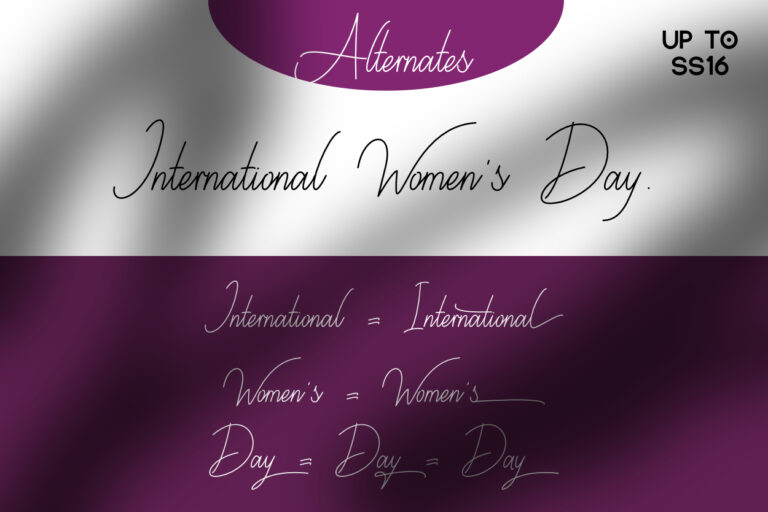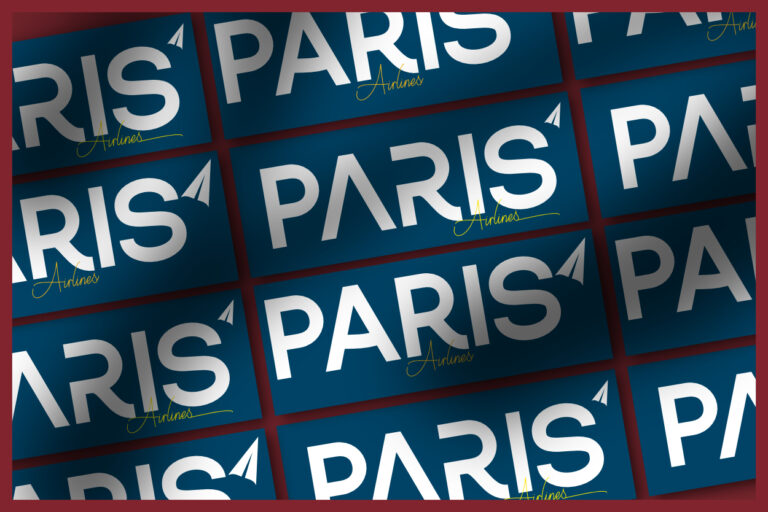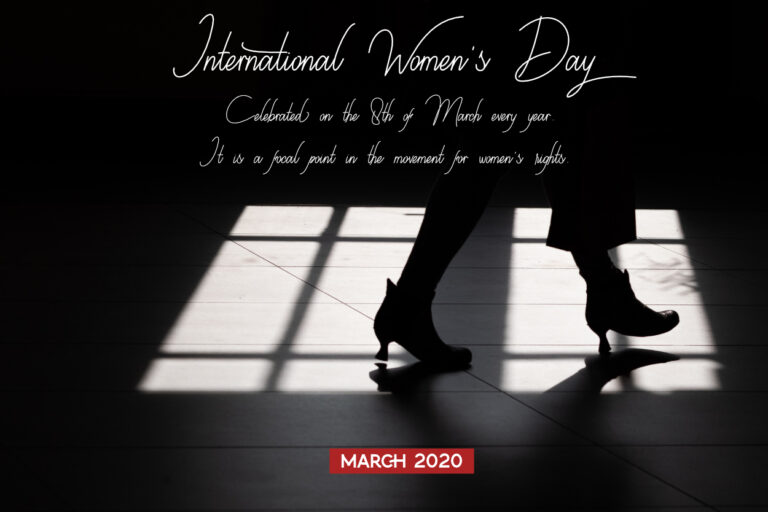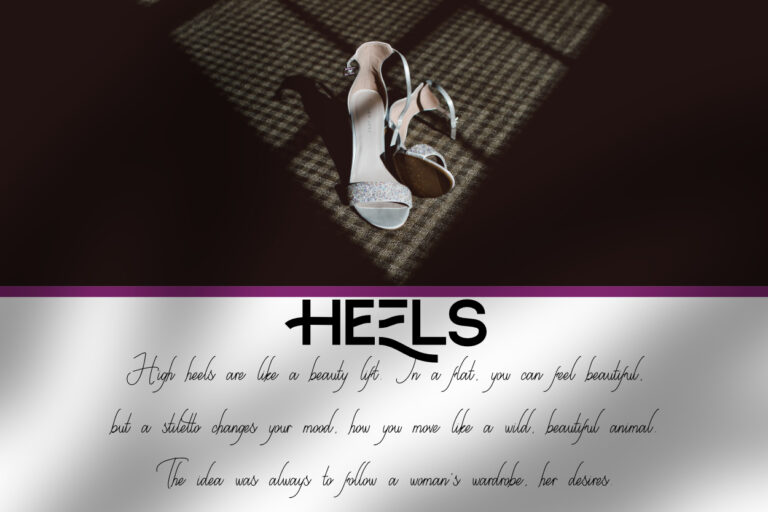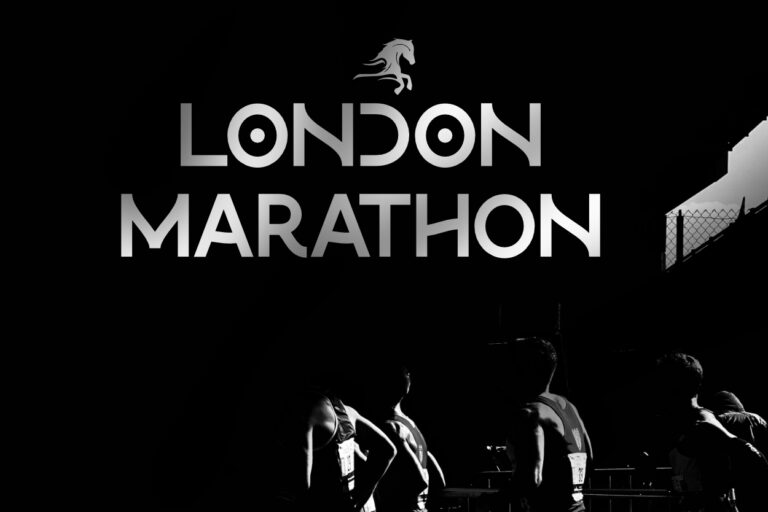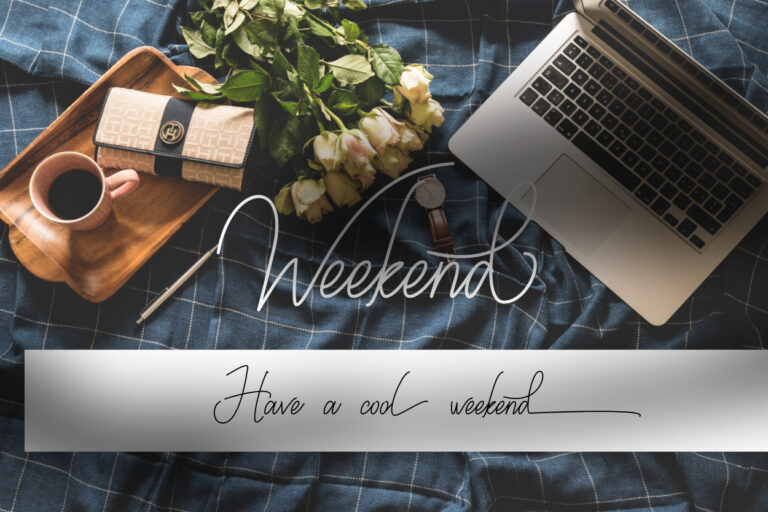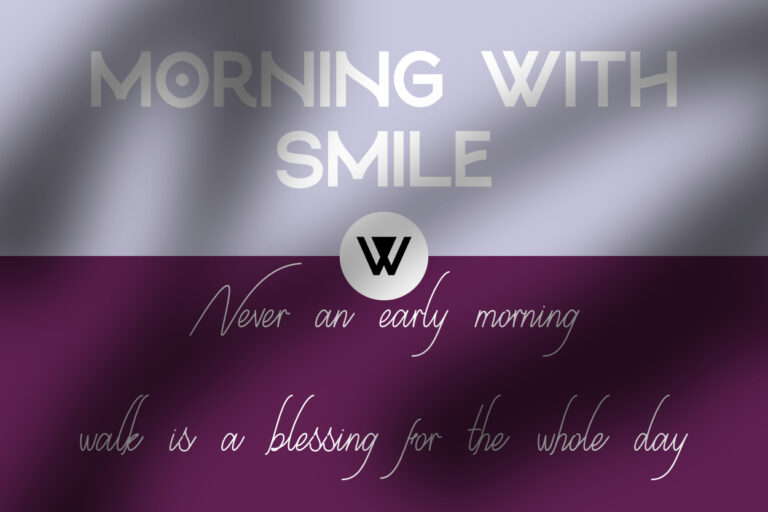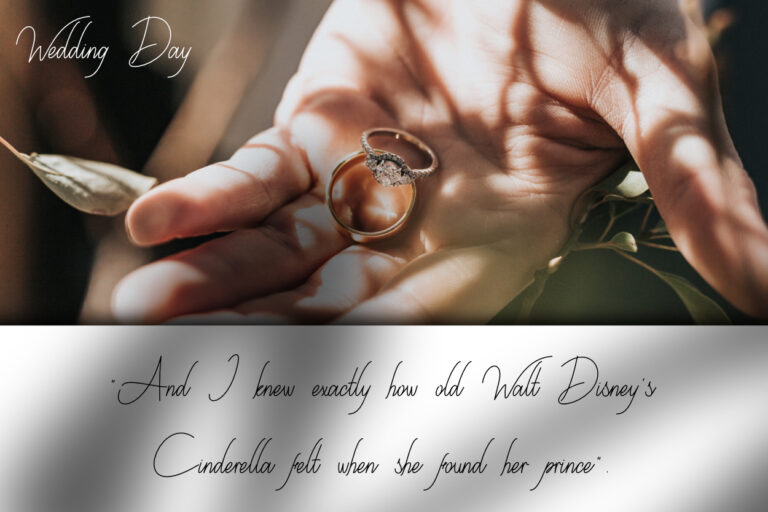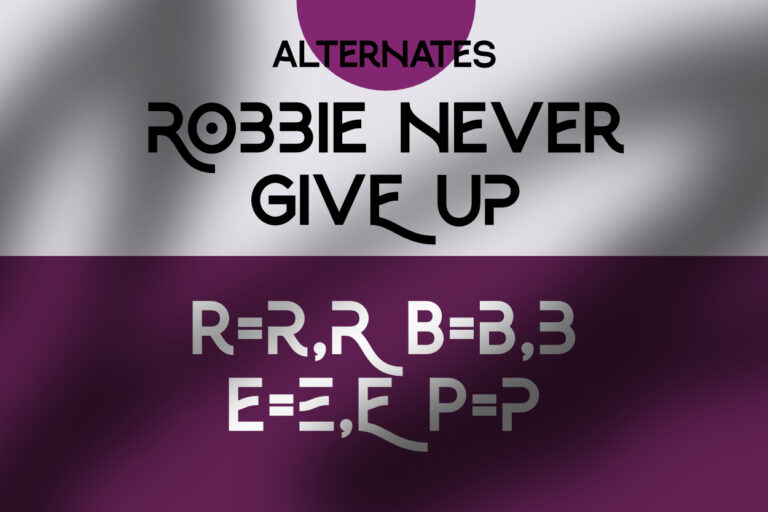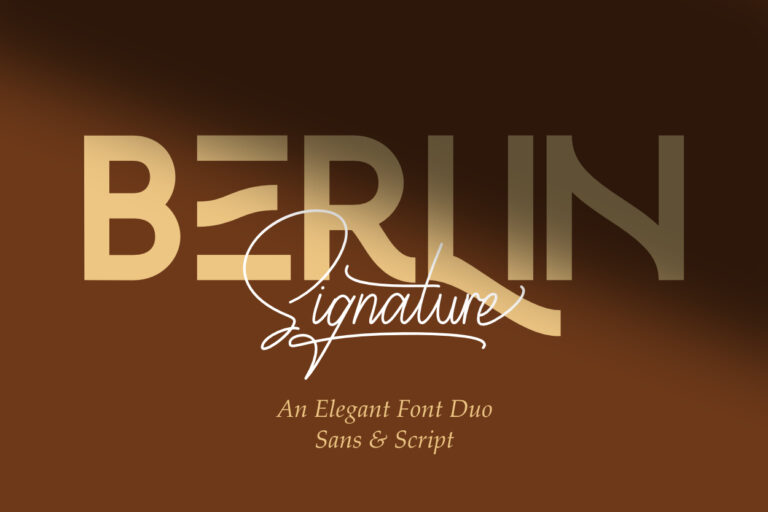
Berlin Signature
Berlin Sans
Berlin Sans is a modern, elegant and luxury font that blends with a touch of vintage charm—perfect for standout logos, refined branding, and sophisticated design projects.
Whether you’re building a bold brand, crafting a elegant logo, or creating a luxury brand identity, Berlin Sans gives your work that luxurious, confident feel. It’s designed for creatives who love clean, geometric forms but still want a font that speaks with personality and class.
Ideal for branding, packaging, editorial design, and more—Berlin Signature is your go-to font for when you want something modern, elegant, and unforgettable.